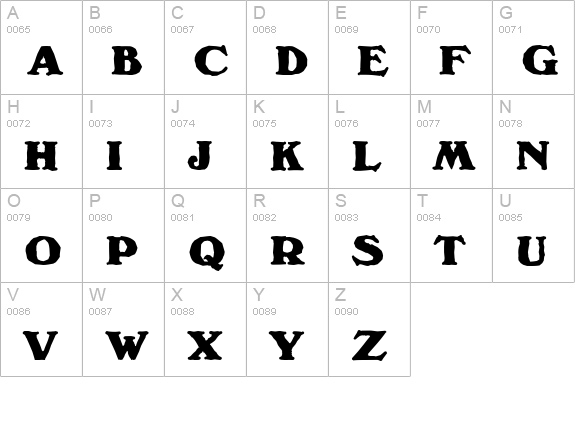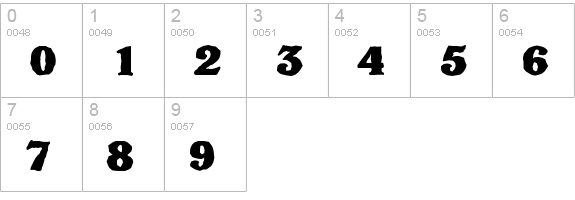
VeronaAntique-Heavy-Regular Font Details
VeronaAntique-Heavy-Regular is a heavy, high-impact variant in the VeronaAntique typeface family \xE2\x80\x94 well suited to high-impact headlines, posters, and display advertising.
VeronaAntique-Heavy-Regular is a timeless and elegant font that exudes sophistication and classic charm. This beautifully designed typeface features intricate details and a strong, bold presence that commands attention. Its vintage-inspired aesthetic makes it perfect for adding a touch of old-world elegance to your projects. Best of all, VeronaAntique-Heavy-Regular is available for free download at FontsMarket.com. Whether you're working on a retro-themed design project or looking to add a touch of vintage flair to your work, this font is sure to make a statement. Download VeronaAntique-Heavy-Regular today and elevate your designs with its timeless appeal.